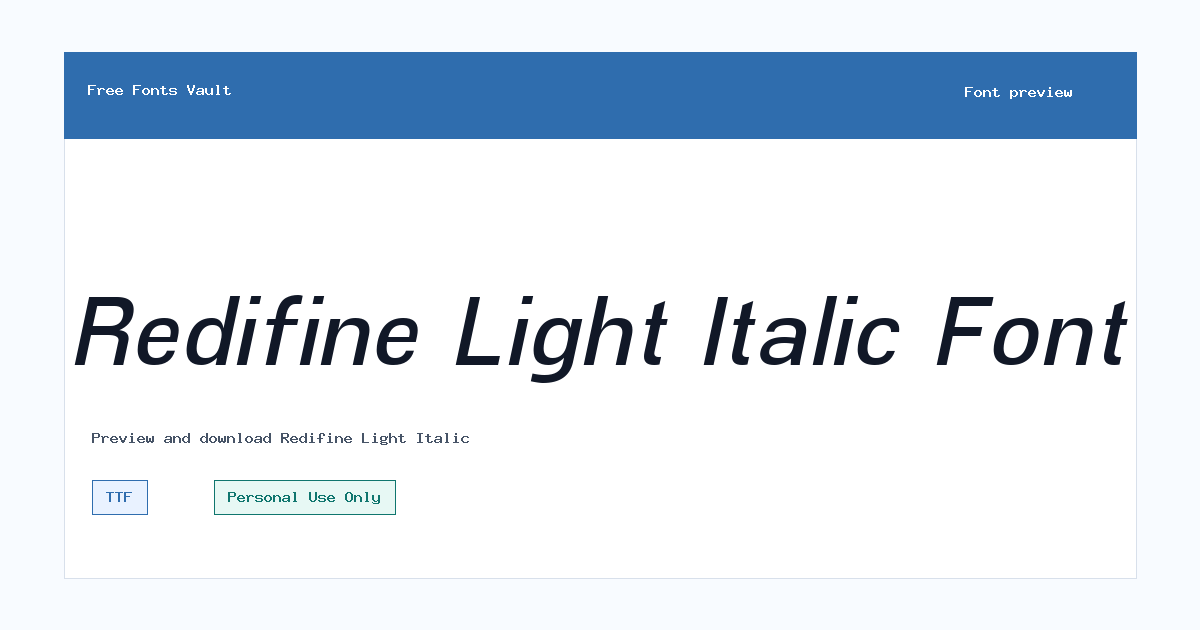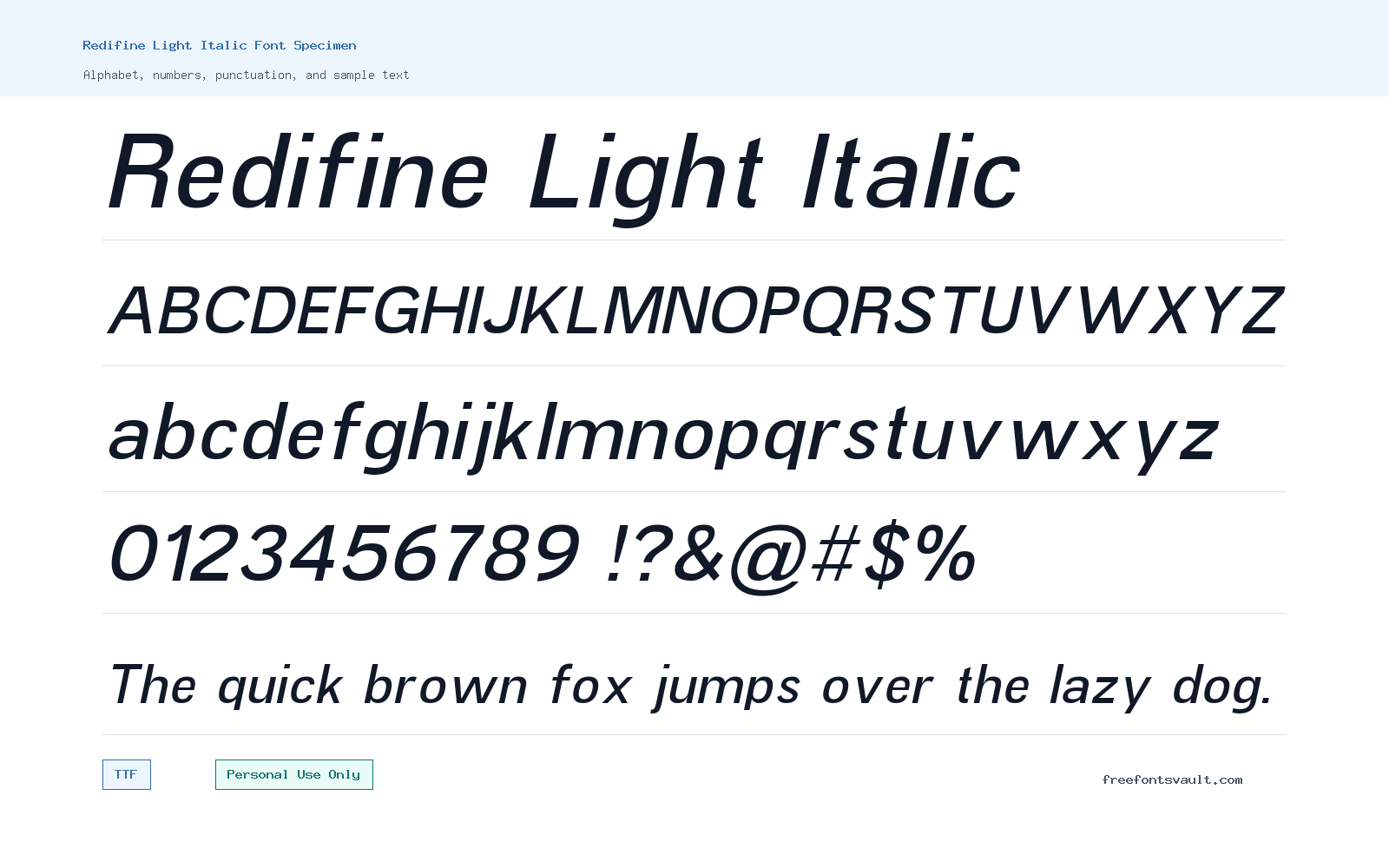
Redifine Light Italic
Redifine Light Italic font preview showing the family name
Redifine Light Italic font specimen showing alphabet, numbers, and sample text
Redifine Light Italic is a light-weight italic sans serif font from Muhamad Fikry Nuralif of Fikryal Studio. It is best approached as a graceful display face for personal projects, mockups, headings, and short pieces of styled text.
About Redifine Light Italic
Redifine Light Italic has a slanted, lightweight structure that gives words a softer and more refined look than a standard upright sans serif. The 300 weight keeps the letters slim, while the italic style adds movement across the line. That combination works well when you want text to feel clean but not plain. It can be useful for fashion-style headings, invitation drafts, editorial mockups, quote graphics, poster accents, packaging concepts, and personal branding experiments where a lighter visual tone is needed.
Because this is a light italic font, it is strongest in short text rather than dense reading. Try it for names, taglines, section titles, captions, social post text, and display phrases. In a font preview tool, test it at larger sizes first, then check smaller sizes carefully before using it in a layout. Thin italic letters can lose clarity on low-resolution screens, busy backgrounds, or small mobile placements. If you use it on an image, give the text enough contrast and spacing so the shape of each letter remains clear.
Pairing this font is easiest when the supporting typeface stays simple. A neutral sans serif in a regular or medium weight can balance the slant and thin strokes. For example, use Redifine Light Italic for a headline or accent line, then use a plain readable sans serif for body copy, buttons, descriptions, or navigation labels. Avoid pairing it with another decorative italic face unless you want a very stylized result, because competing angles can make a design feel busy. It also helps to use generous spacing and clean layouts so the font’s slim form has room to breathe.
• Light 300 weight with an italic sans serif style
• Best suited to short display text, headings, names, and accent lines
• Clean slanted appearance that can add motion without heavy decoration
• Works best at medium to large sizes where thin letterforms stay readable
• Personal poster titles and quote graphics
• Fashion, beauty, lifestyle, or editorial-style mockups
• Invitation drafts, mood boards, and social media visuals
• Logo concept exploration and personal branding studies
• Website hero text, web mockups, and elegant section headings
Use Redifine Light Italic where a thin, angled sans serif can act as the visual accent. Keep it away from long paragraphs, tiny labels, and low-contrast backgrounds. For web or app mockups, test the font in the exact size and background color you plan to use. For posters and images, increase letter spacing only if it improves readability; too much spacing can make italic text feel disconnected. For logo concepts, use it as a starting point, then check licensing before moving beyond personal or internal mockup use.
What type of font is Redifine Light Italic?
It is a light italic sans serif font with a 300 weight. It is better for display text and accents than for long reading.
Where does Redifine Light Italic work best?
It works best in short, visible text such as headings, names, posters, social graphics, invitation drafts, and web mockup hero text.
Is it good for body text?
It is not the best choice for long body text. The light italic style is easier to use as a headline, accent, or short caption.
What should I pair with Redifine Light Italic?
Pair it with a simple upright sans serif in a regular or medium weight. That keeps the layout readable while letting the italic font stand out.